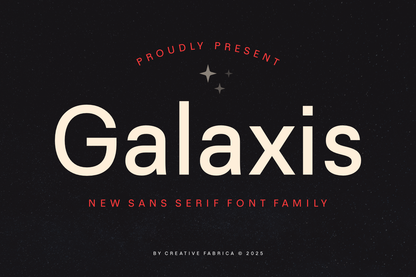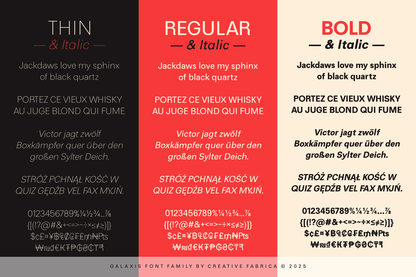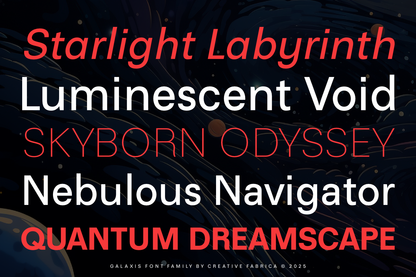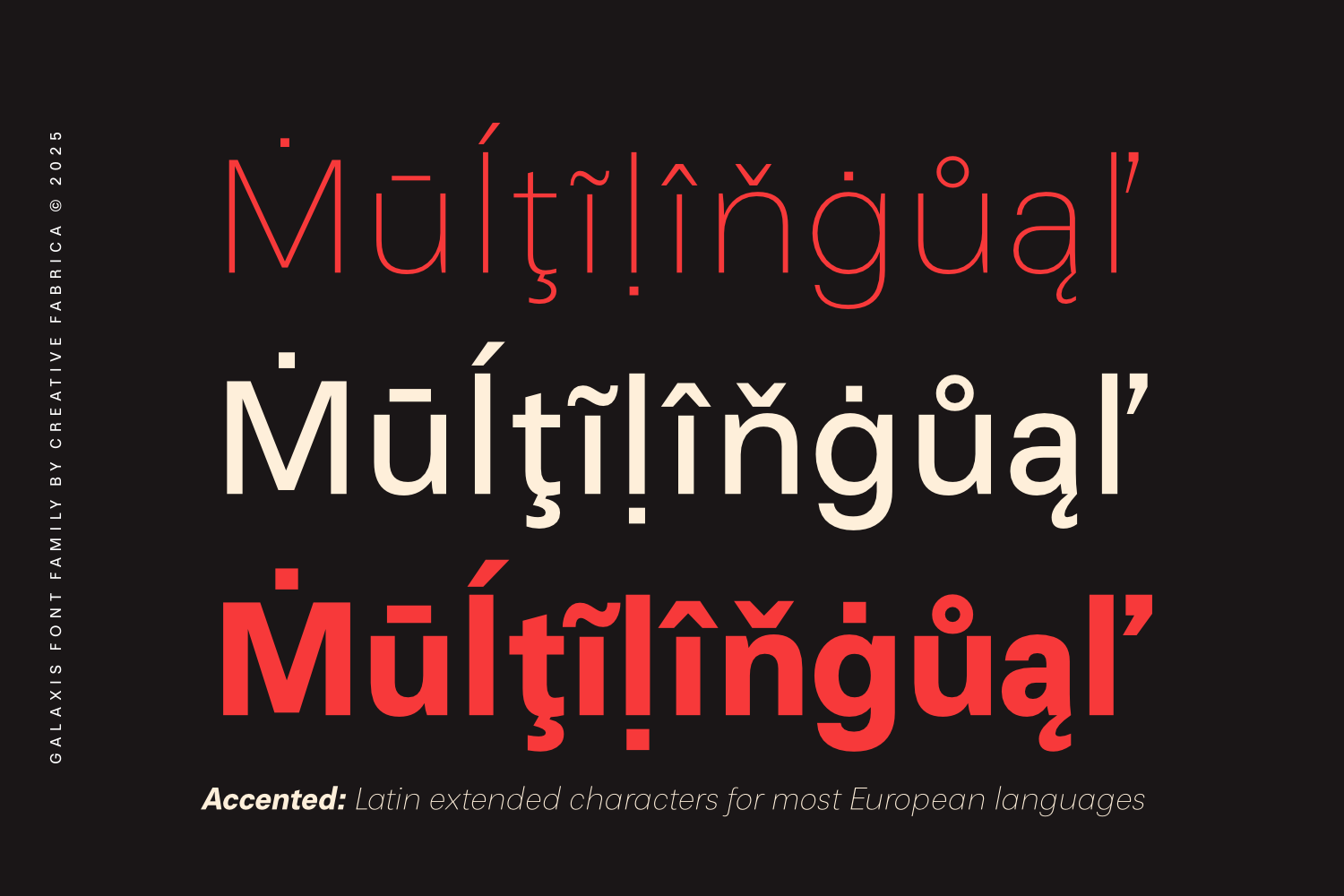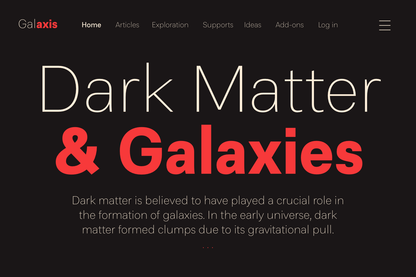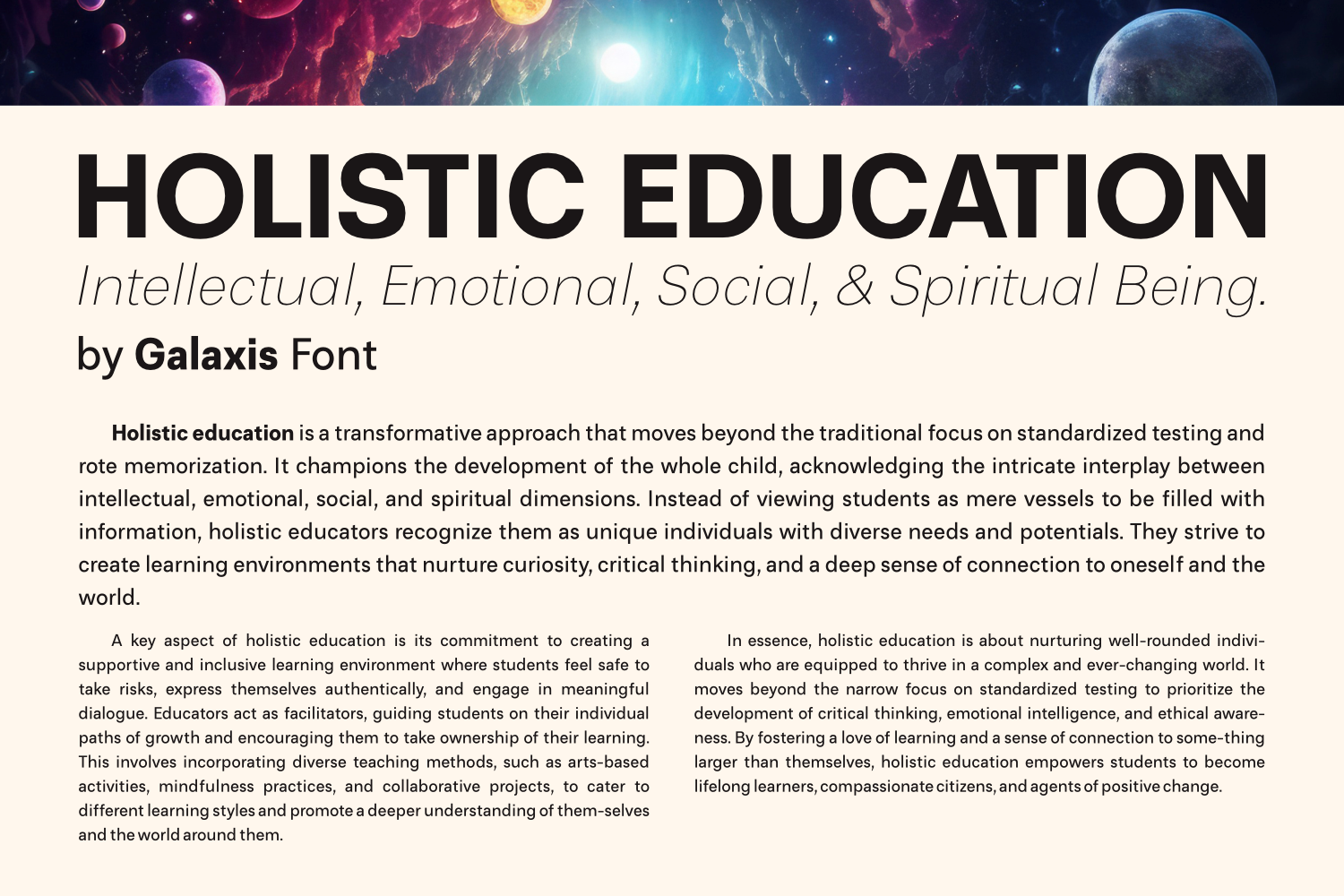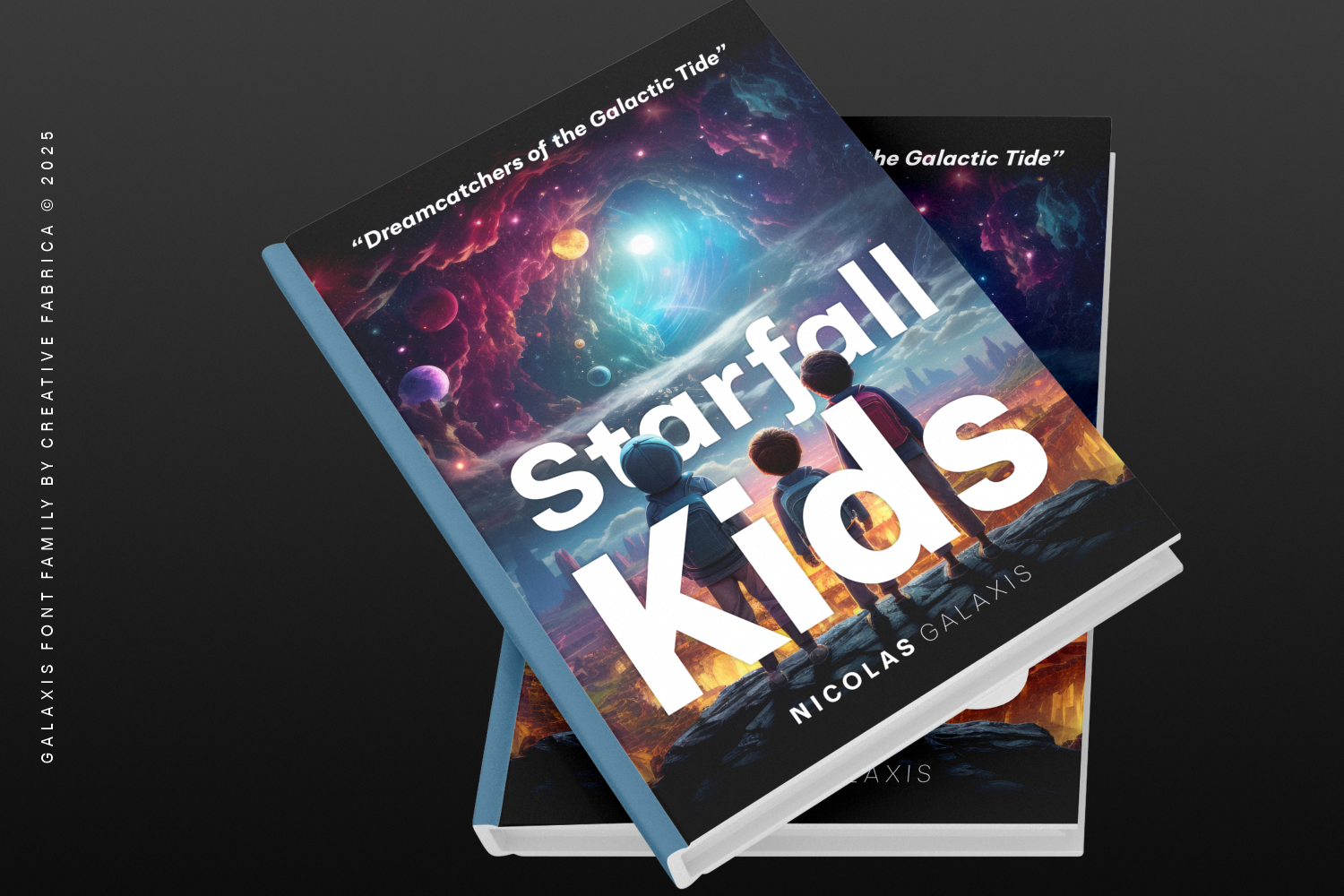
Meet Galaxis, a sleek and contemporary sans-serif font family inspired by the timeless elegance of the Univers Font. Galaxis effortlessly blends classic sophistication with modern minimalism, creating a versatile typeface perfect for branding, editorial layouts, web interfaces, and impactful headlines. With its precise geometric structure and refined letterforms, Galaxis ensures exceptional readability and visual harmony across all designs. Featuring 6 elegant styles—from Thin to Bold Italic—Galaxis is ready to elevate your next creative project with clarity, professionalism, and a touch of cosmopolitan charm.